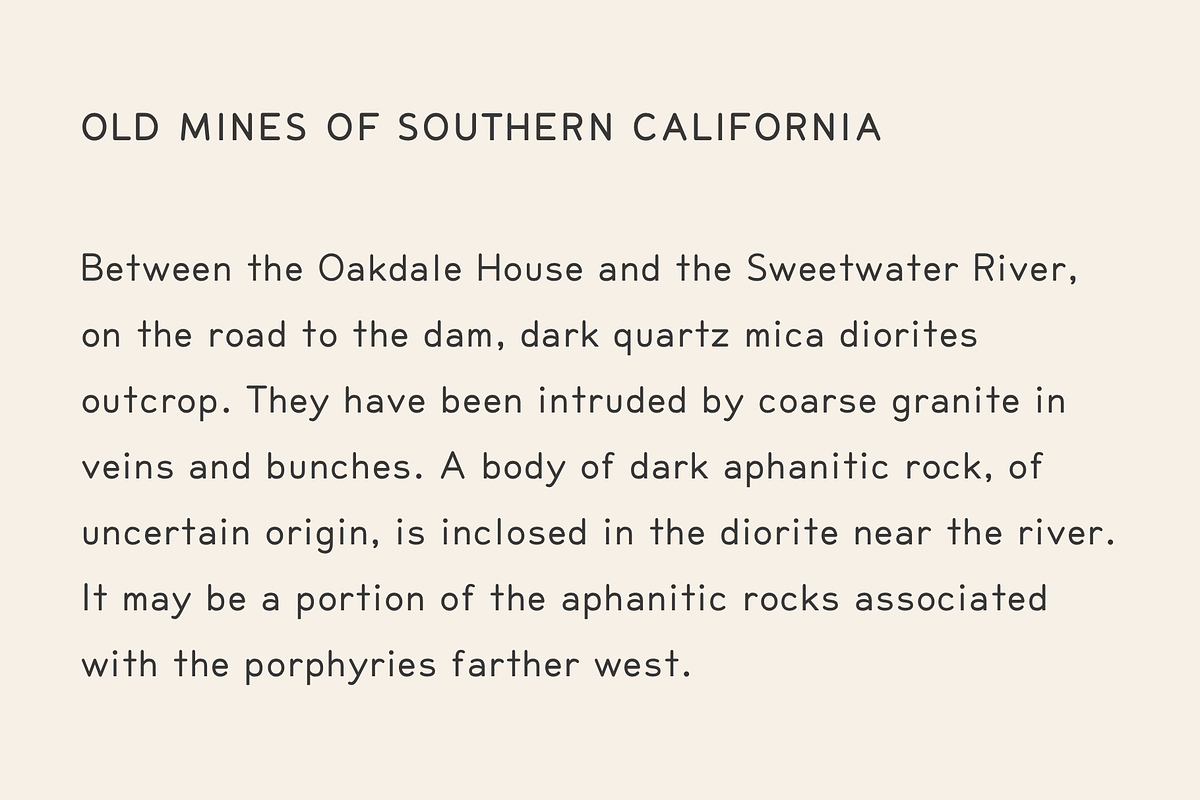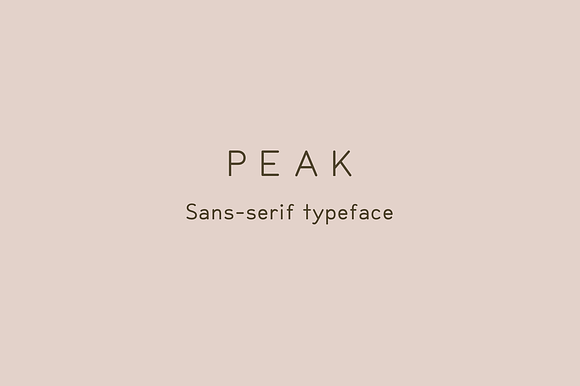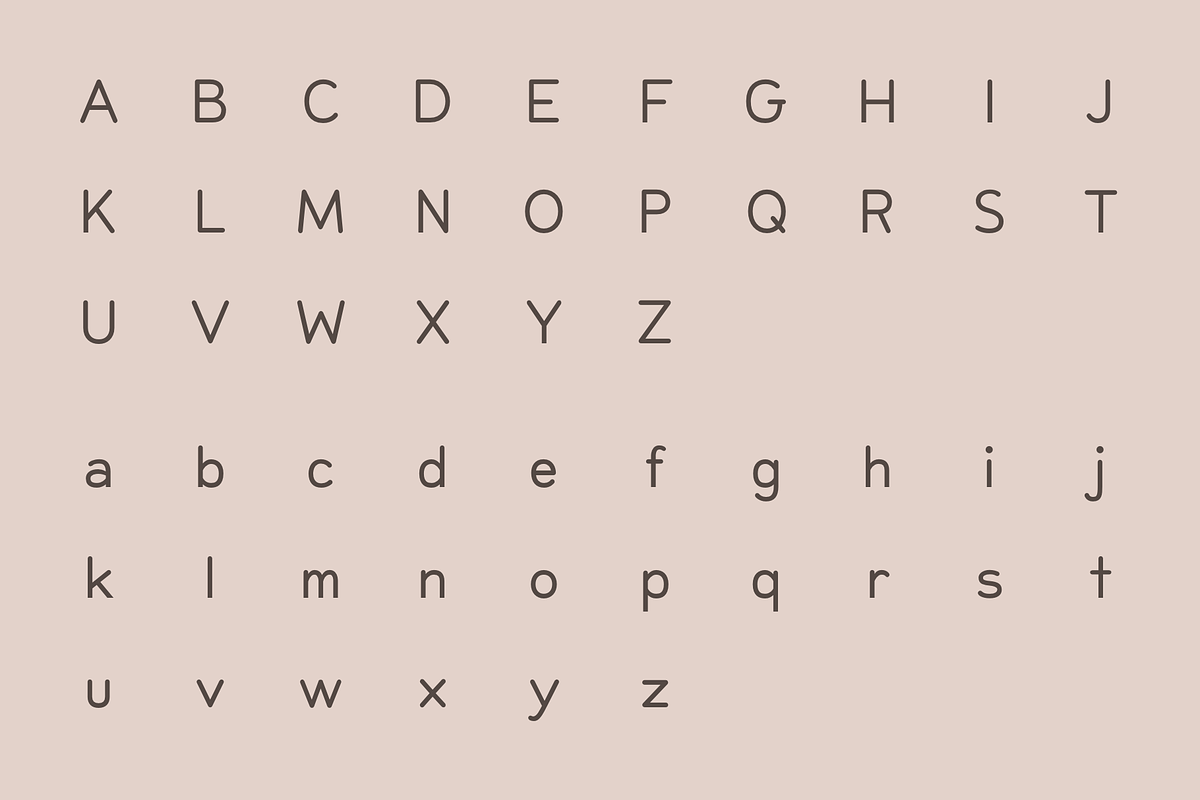
Peak, Sans-serif font
Peak Sans Serif Font by pilgrimfonts is a font selected for branding, posters, packaging, typography.
Why Peak, Sans-serif font is worth a look
Peak, Sans-serif font by Pilgrim Fonts fits naturally into Branding, posters, packaging, typography.